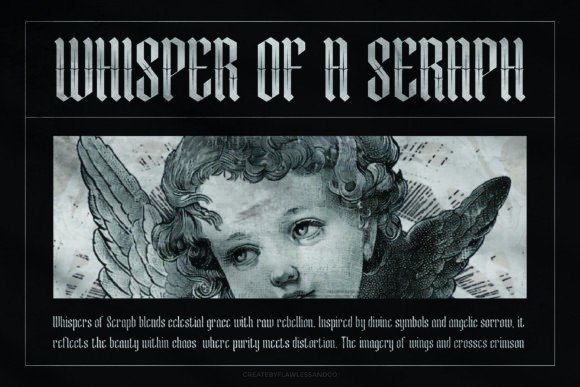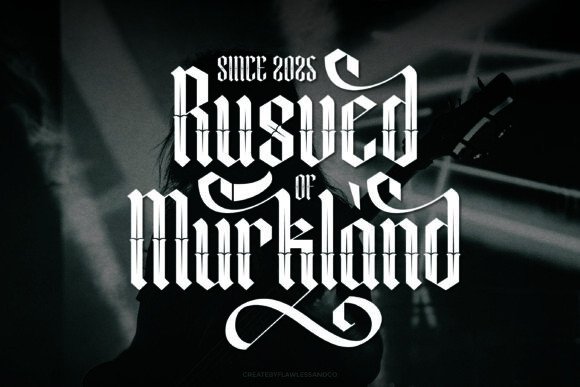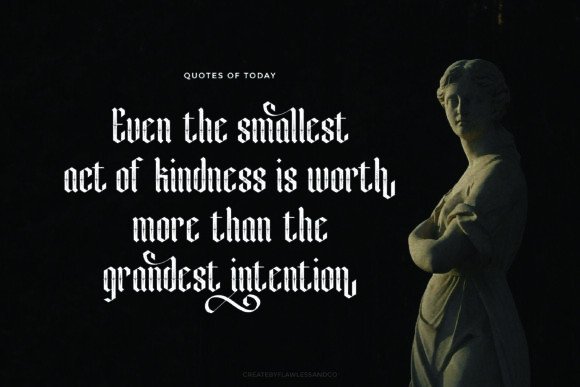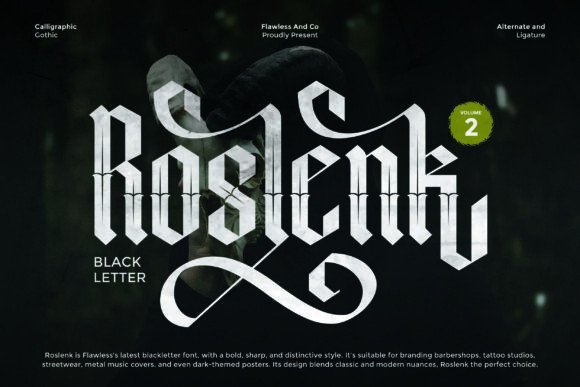
Introduction to Roslenk Volume 2 Font Font
Roslenk Volume 2 is a bold blackletter font with a sharp, striking, and timeless character.
Its design captures the essence of Gothic calligraphy while blending in a modern touch, making it stand out in every project Perfectly suited for branding barbershops, tattoo studios, streetwear fashion, heavy metal music covers, dark-themed posters, and more, Roslenk Vol2 delivers both power and elegance in one package.